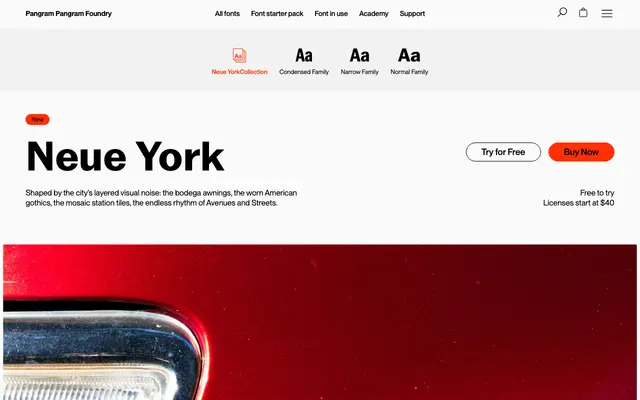
PP Neue York
A 48-style sans drawn from New York vernacular signage, in three widths with deliberately different x-heights for headline and text.
PP Neue York is a vernacular gothic sans built from the layered visual noise of New York: bodega awnings, worn American gothics, subway tile mosaics and avenue and street rhythm. It runs across three widths drawn with deliberately different x-heights, with the Condensed taller and tighter for headlines and the Normal proportioned for text and continuous reading. Eight weights with italics in each width give a 48-style family that flexes from display to running copy without breaking voice.
Sans serif drawn from New York vernacular signage, from bodega awnings to subway tile mosaics and worn American gothics; three widths (Normal, Narrow, Condensed) drawn with deliberately different x-heights, eight weights with italics, 48 styles total.